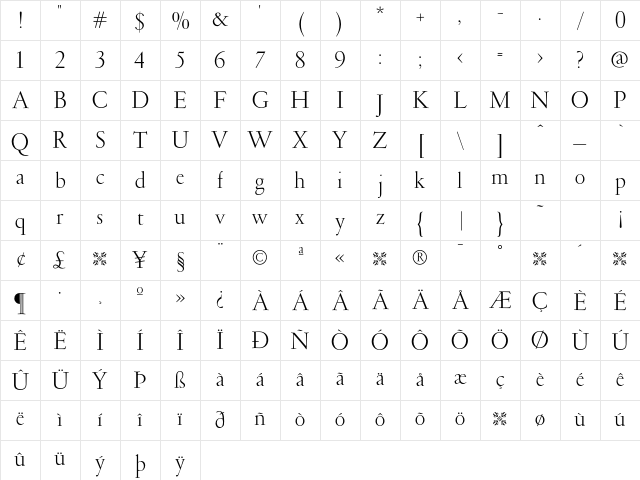
GaramondLight is a composed and adaptable typeface that performs quietly and consistently across a wide range of design contexts. Its slender proportions lend an understated elegance to any composition.